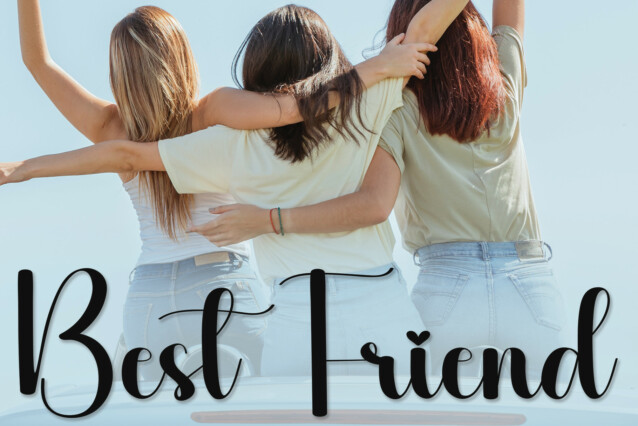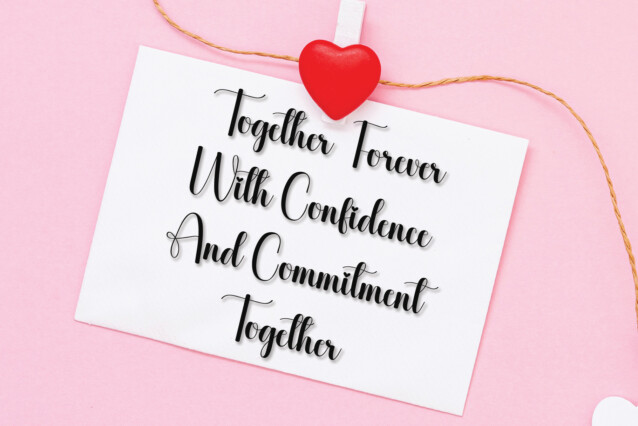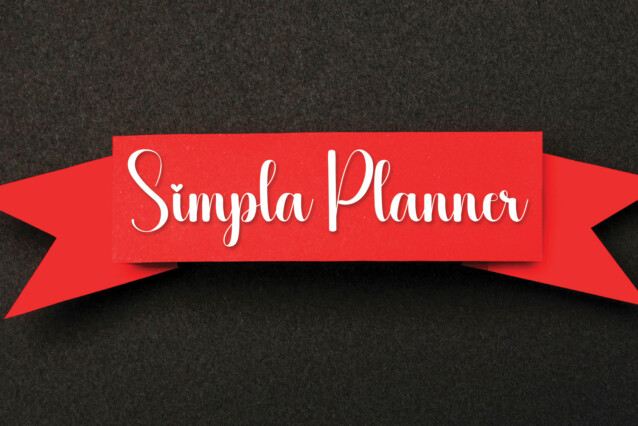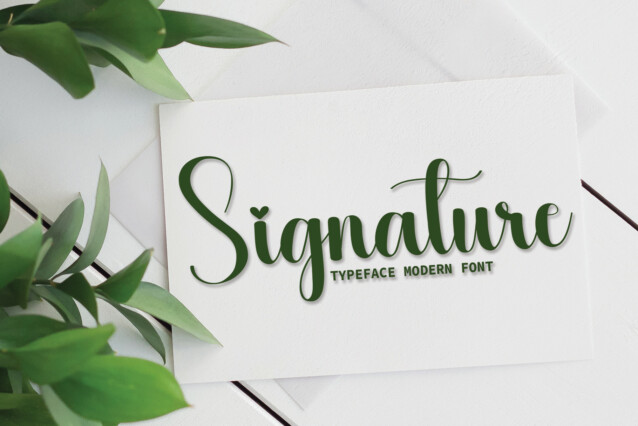
Daydream Script Typeface
Daydream Script Typeface is a romantic and sweet calligraphy typeface with characters that dance along the baseline. It has a casual, yet elegant touch.